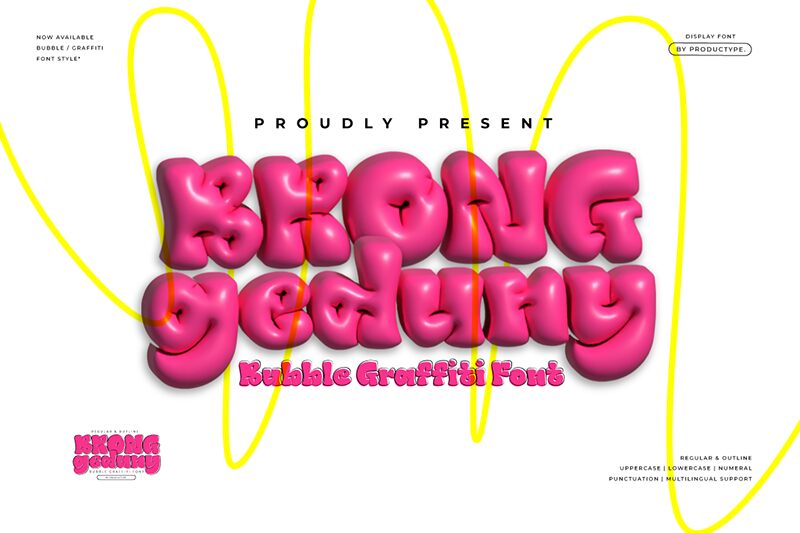
Brong Geduny font family by productype.com includes 4 unique, graffiti-inspired font styles to breathe vibrant, youthful life into your art and design projects. The free font family provides both variety in style and authenticity in its appearance, making for a beautiful and impactful visual presentation that’s modern and calls for attention. The bubbly and inflated nature of the characters makes the typeface quite energetic, making for a dynamic read in both titles and body.
The informal setup of Brong Geduny lends it handy for an artist’s signature, home decor quotes, magazines, logos, flyers, covers, children’s books, school projects, and blog pages. The youthful exuberance of the characters also makes for eye-catching designs for movie posters, advertising billboards, graffiti-inspired artworks, and much more.